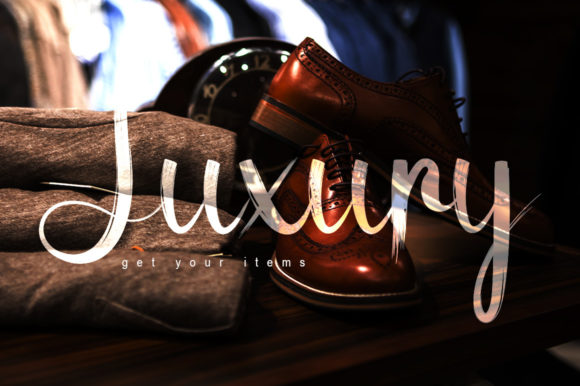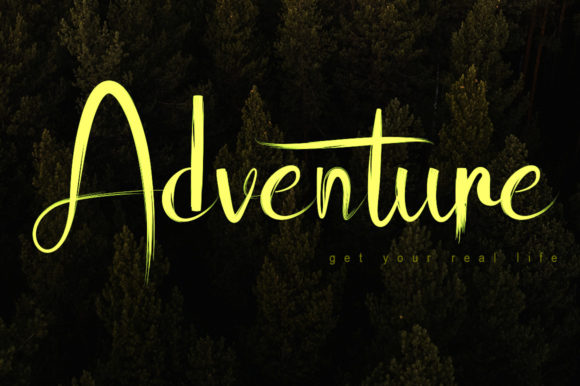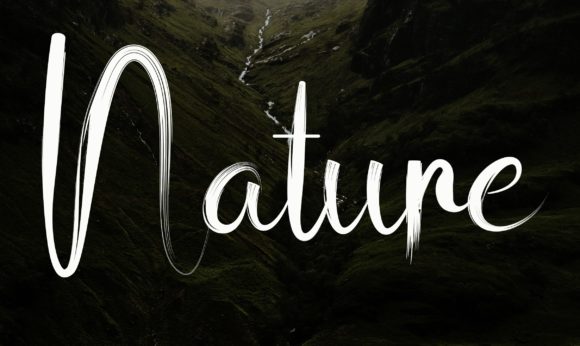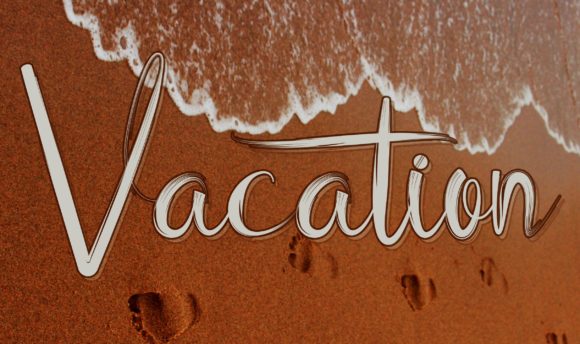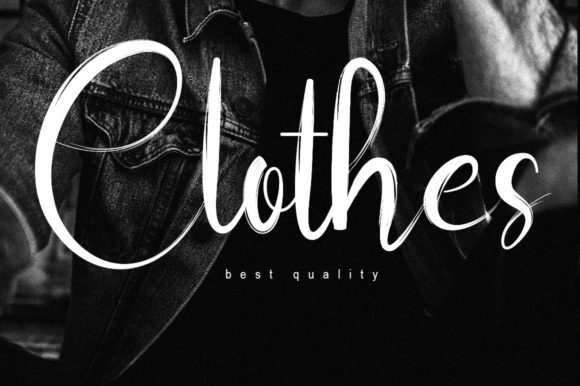
Dustiest Font: Add a Touch of Romance to Your Designs
Are you looking for a font that can add a romantic feel to your next project? Look no further than Dustiest, an enchanting handwritten font that is sure to captivate your audience. With its elegant and flowing script, Dustiest is a versatile font that can be used in a wide range of applications, from greeting cards to headlines, and everything in between.
What Makes Dustiest Font So Special?
Dustiest font is a beautifully crafted handwritten font that exudes a sense of romance and whimsy. Its delicate strokes and intricate details make it perfect for designs that require a touch of elegance and sophistication. Whether you’re creating a wedding invitation, a Valentine’s Day card, or a simple yet effective headline, Dustiest font is guaranteed to add a romantic feel to your project.
Key Features of Dustiest Font
- Handwritten Script: Dustiest font is a handwritten script font that features elegant and flowing strokes, perfect for creating romantic and whimsical designs.
- Versatile: Dustiest font can be used in a wide range of applications, from greeting cards to headlines, and everything in between.
- Easy to Read: Despite its intricate details, Dustiest font is easy to read, making it perfect for designs that require a clear and concise message.
- Unique and Distinctive: Dustiest font has a unique and distinctive style that sets it apart from other fonts, making it perfect for designers who want to create something truly special.
Uses of Dustiest Font
Dustiest font is a versatile font that can be used in a wide range of applications, including:
- Greeting Cards: Dustiest font is perfect for creating romantic greeting cards for special occasions such as weddings, anniversaries, and Valentine’s Day.
- Headlines: Dustiest font can be used to create eye-catching headlines for magazines, newspapers, and online publications.
- Wedding Invitations: Dustiest font is a popular choice for wedding invitations, adding a touch of romance and elegance to the design.
- Branding: Dustiest font can be used to create unique and memorable brand identities for businesses that want to stand out from the crowd.
Tips for Using Dustiest Font
Here are some tips for using Dustiest font in your designs:
- Use it Sparingly: Dustiest font is a decorative font that works best when used sparingly. Use it for headlines or titles, and a simpler font for the body text.
- Experiment with Colors: Dustiest font looks great in a variety of colors, so don’t be afraid to experiment and find the perfect color to match your design.
- Pair it with Other Fonts: Dustiest font can be paired with other fonts to create a unique and interesting design. Try pairing it with a bold sans-serif font for a striking contrast.
Dustiest font is a beautiful and versatile handwritten font that is sure to add a romantic feel to your next project. With its elegant and flowing script, Dustiest font is perfect for designs that require a touch of elegance and sophistication. Whether you’re a designer, crafters, or simply someone who loves typography, Dustiest font is a great addition to your font collection.